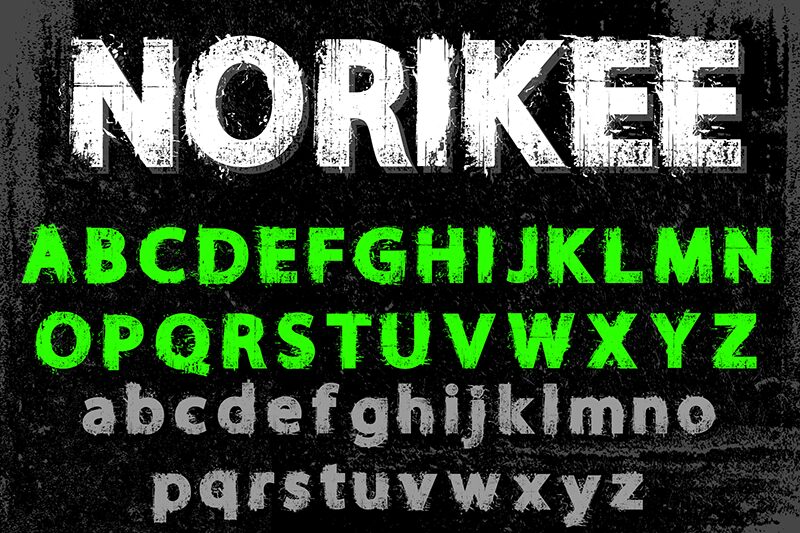
NORIKEE DEMO Regular
Introducing - NORIKEE -
Full Distressed style font.. Made it easily to create your new Tshirt design, Cds, magazine etc. Just download, install and type it.. Boom!